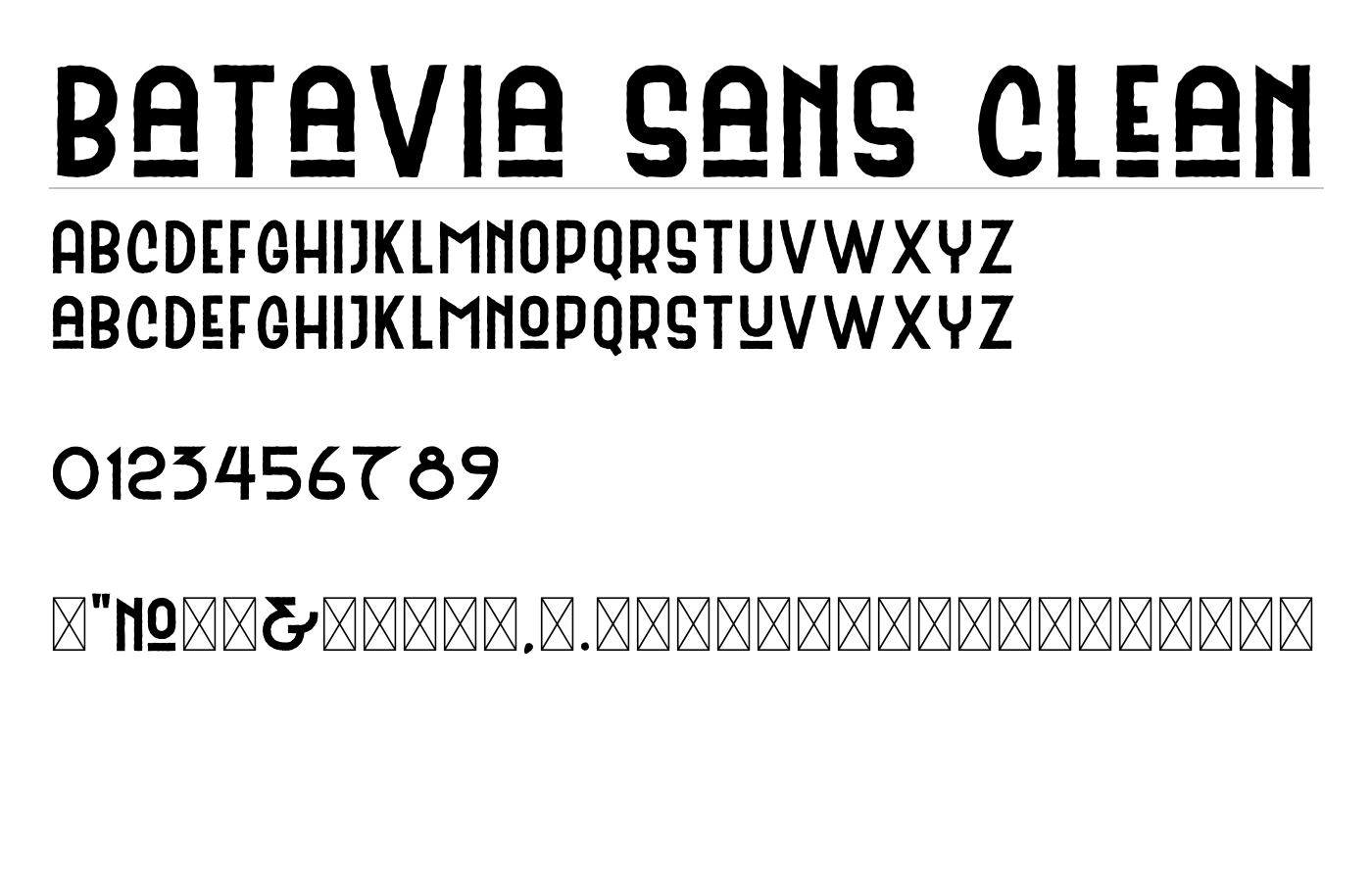
Batavia is a tall, narrow sans serif typeface with a modern and clean appearance, perfect for sleek and minimalist designs. Its slender letterforms and high x-height create a striking yet elegant look, making it ideal for headlines, logos, and stylish branding where a contemporary and sophisticated tone is desired.
Batavia Font
About Batavia Font
| Font family | Batavia Font |
| Designer | Istiko Rahadi |